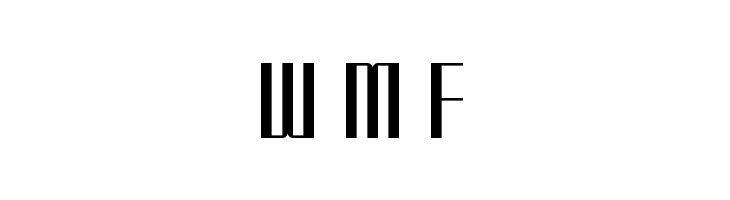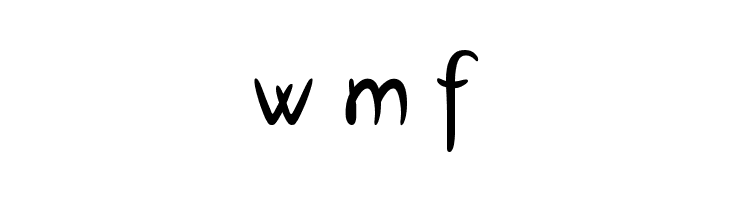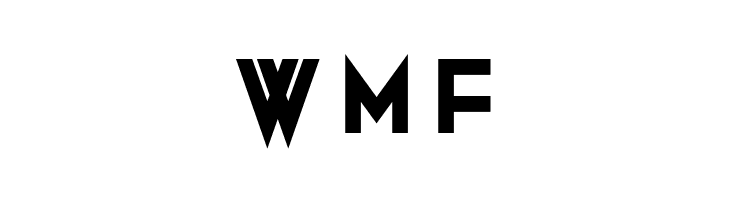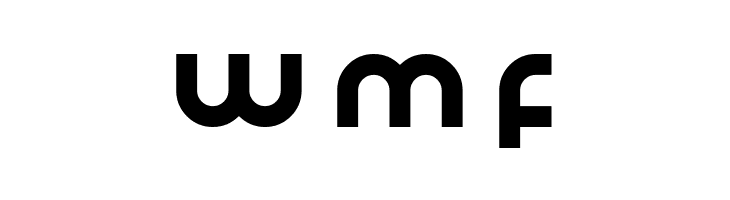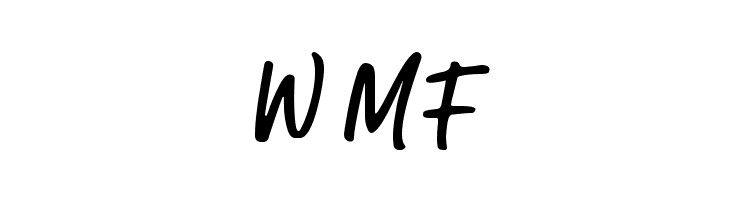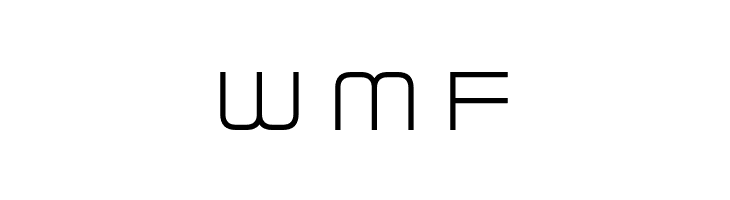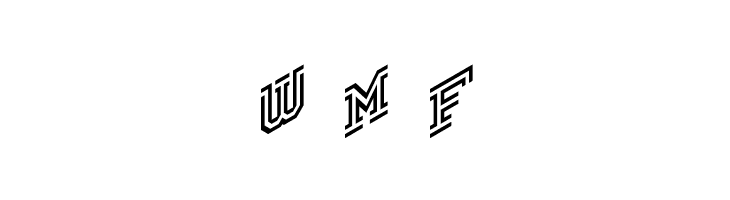
( Tup Wanders - www.tupwanders.nl )
A bold, geometric font with a futuristic and tech-inspired design.
( Tup Wanders - www.tupwanders.nl )
A modern, italicized font with a sleek, futuristic design.
( Xerographer Fonts - Max Infeld - xerographer.blogspot.com )
A bold, geometric font with a double-line structure and modern appeal.
( Xerographer Fonts - Max Infeld - xerographer.blogspot.com )
A bold, futuristic font with sharp, angular design elements.
( Xerographer Fonts - Max Infeld - xerographer.blogspot.com )
A futuristic, geometric font with angular and sharp edges.
( Xerographer Fonts - Max Infeld - xerographer.blogspot.com )
A futuristic, italicized font with sharp, angular lines and a dynamic style.
( Xerographer Fonts - Max Infeld - xerographer.blogspot.com )
Bold, geometric font with a futuristic and industrial style.
( Xerographer Fonts - Max Infeld - xerographer.blogspot.com )
A bold, geometric font with a double-line effect and futuristic style.
( Xerographer Fonts - Max Infeld - xerographer.blogspot.com )
A bold, geometric font with a futuristic and dynamic style.
( Xerographer Fonts - Max Infeld - xerographer.blogspot.com )
A bold, playful font with a distressed, hand-crafted appearance.
( Xerographer Fonts - Max Infeld - xerographer.blogspot.com )
A bold, playful handwritten font with thick strokes and a casual style.
( Xerographer Fonts - Max Infeld - xerographer.blogspot.com )
A sleek, italic font with modern elegance and classic charm.
( Xerographer Fonts - Max Infeld - xerographer.blogspot.com )
A hollow, geometric font with a modern and angular design.
( Xerographer Fonts - Max Infeld - xerographer.blogspot.com )
A bold, geometric font with rounded edges and sharp angles for a modern look.
( Xerographer Fonts - Max Infeld - xerographer.blogspot.com )
A modern, geometric font with consistent stroke width and a sleek design.
( Xerographer Fonts - Max Infeld - xerographer.blogspot.com )
A bold, italic font with a dynamic and modern style.
( Xerographer Fonts - Max Infeld - xerographer.blogspot.com )
A bold, geometric serif font with a modern and classic blend.
( Xerographer Fonts - Max Infeld - xerographer.blogspot.com )
A bold, italicized font with a modern and slightly decorative style.
( Xerographer Fonts - Max Infeld - xerographer.blogspot.com )
A bold, geometric font with angular shapes and a modern, industrial feel.
( Xerographer Fonts - Max Infeld - xerographer.blogspot.com )
A playful, hand-drawn font with whimsical, uneven strokes.
( Xerographer Fonts - Max Infeld - xerographer.blogspot.com )
A bold, futuristic font with geometric shapes and a dynamic design.
( Zansari - Zaffar Ansari - www.zansarifont.com )
A bold, dynamic brush-style font with fluid, expressive strokes.
( blue studio09 )
A delicate, flowing script font with an elegant, handwritten style.
( mlkwsn - Malik Wisnu )
An elegant script font with flowing, interconnected letters and ornate flourishes.
( mlkwsn - Malik Wisnu )
A dynamic, expressive handwritten font with fluid, cursive strokes.
( mlkwsn - Malik Wisnu )
A playful, bold, and rounded hand-drawn font with a whimsical style.
( mlkwsn - Malik Wisnu )
A tall, narrow, and geometric font with a modern aesthetic.
( mlkwsn - Malik Wisnu )
A playful and bold font with rounded, whimsical letterforms.
( mlkwsn - Malik Wisnu )
A bold, brush-style font with high contrast and an energetic, distressed look.
( mlkwsn - Malik Wisnu )
A bold, brush-style font with dynamic, handcrafted strokes.
( mlkwsn - Malik Wisnu )
A playful, hand-drawn font with rounded, bold characters and a whimsical style.
( mlkwsn - Malik Wisnu )
A playful, bold, and rounded font with a hand-drawn feel.